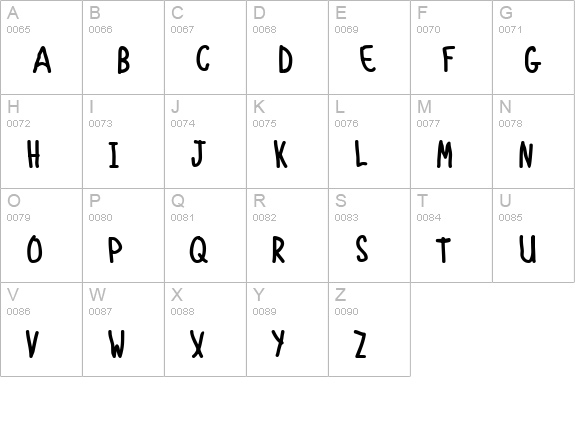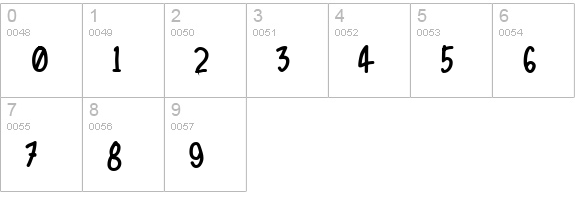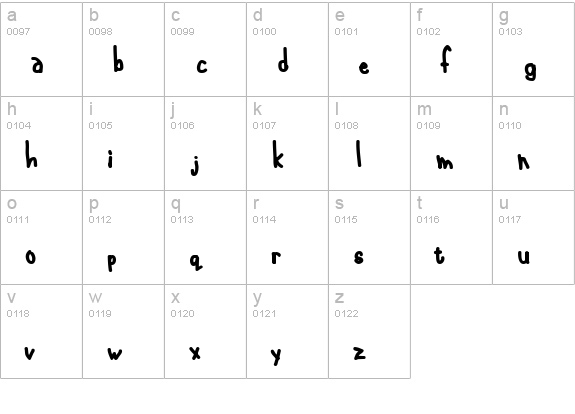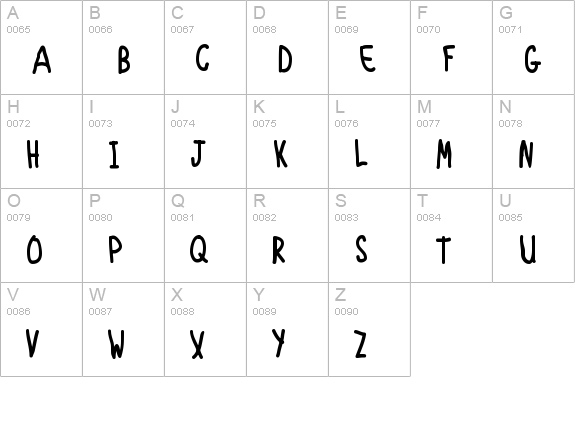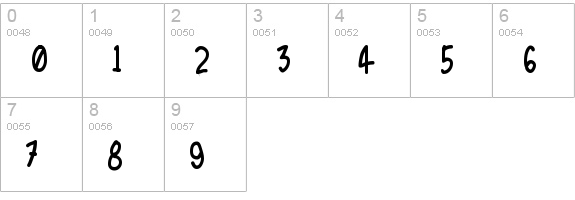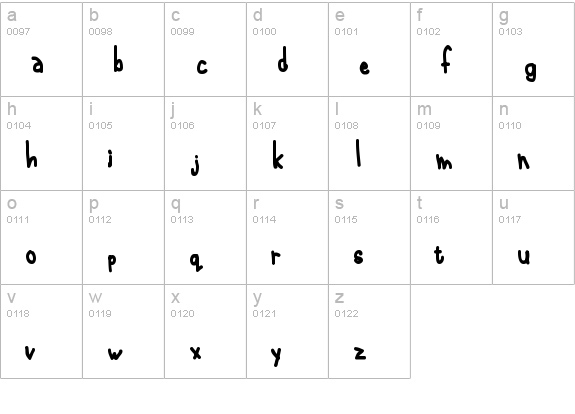
TR International Chunkfunk Font Details
Introducing TR International Chunkfunk font, a bold and playful typeface that exudes modernity and creativity. This unique font is perfect for making a statement in your designs, whether it be for branding, advertising, or any creative project. With its chunky letterforms and funky style, TR International Chunkfunk font is sure to grab attention and leave a lasting impression. Best of all, TR International Chunkfunk font is available for free download at FontsMarket.com. This means you can easily access this eye-catching font and use it in your projects without any cost. Don't miss out on adding this dynamic font to your collection today!